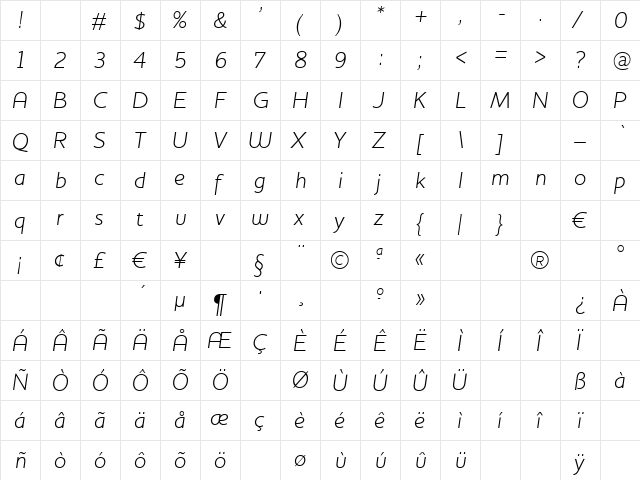
HouschkaLightItalic Regular
Design Context for HouschkaLightItalic Typeface
HouschkaLightItalic offers clean, dependable letterforms without strong stylistic allegiance, making it a practical choice for designers who need flexibility. The dynamic lean of this cut emphasises speed and emphasis in any layout. The delicate stroke weight brings airiness and refinement to layouts.